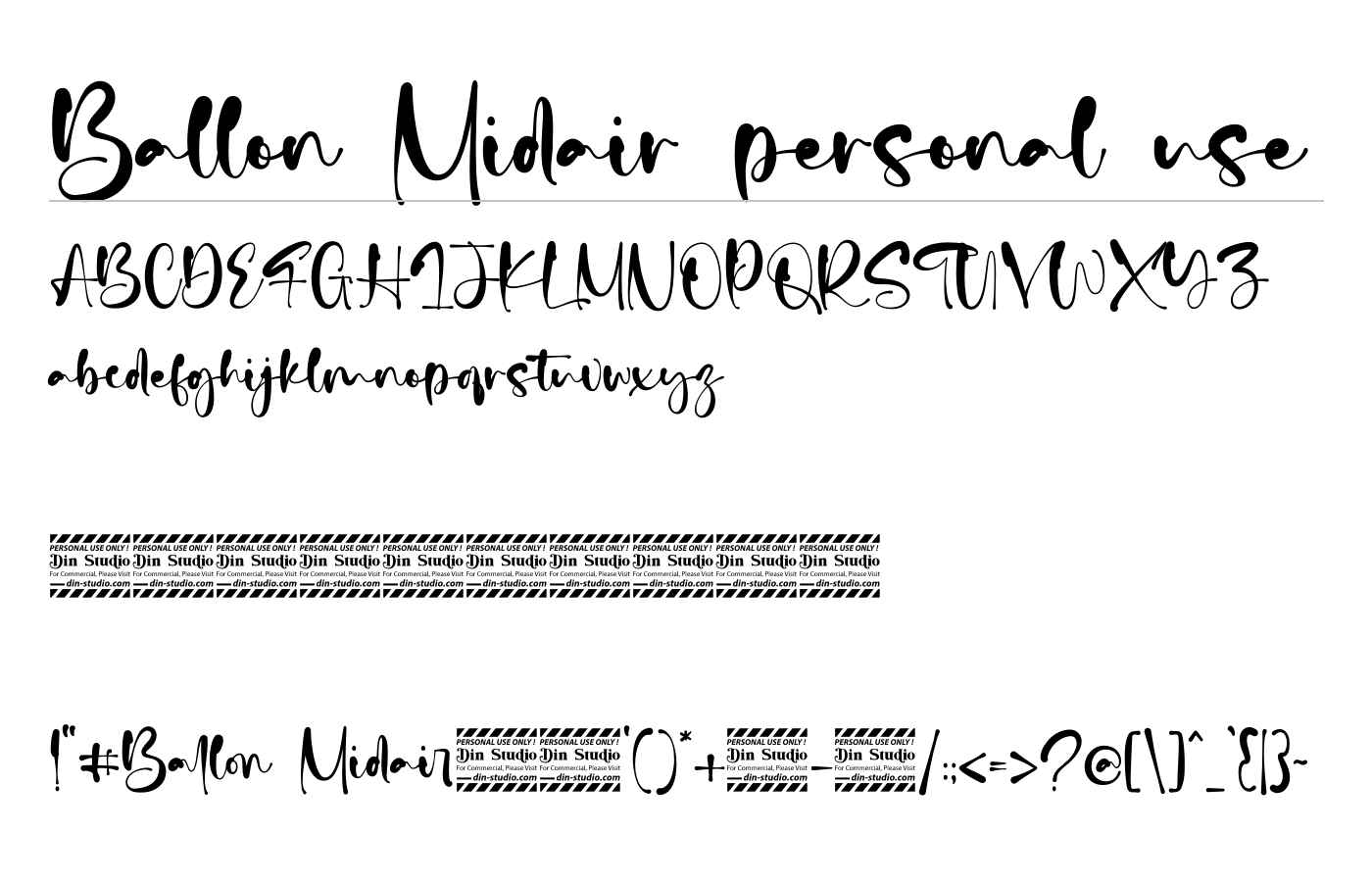
Ballon Midair is a lively and expressive script font with a personal, handwritten feel characterized by smooth, flowing strokes and moderate contrast. Its playful curves and casual style make it great for creative projects needing a friendly, approachable vibe, such as invitations, branding, and social media graphics. This font works best in headlines or short text where its unique personality can shine.
Ballon Midair personal use Font
About Ballon Midair personal use Font
| Font family | Ballon Midair personal use Font |